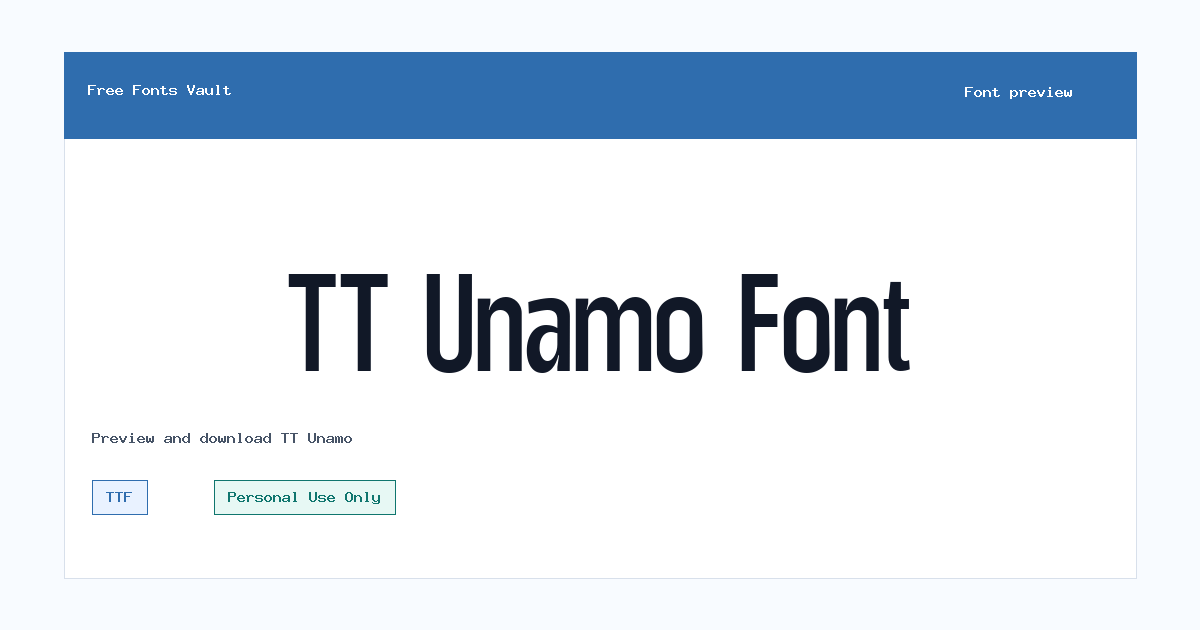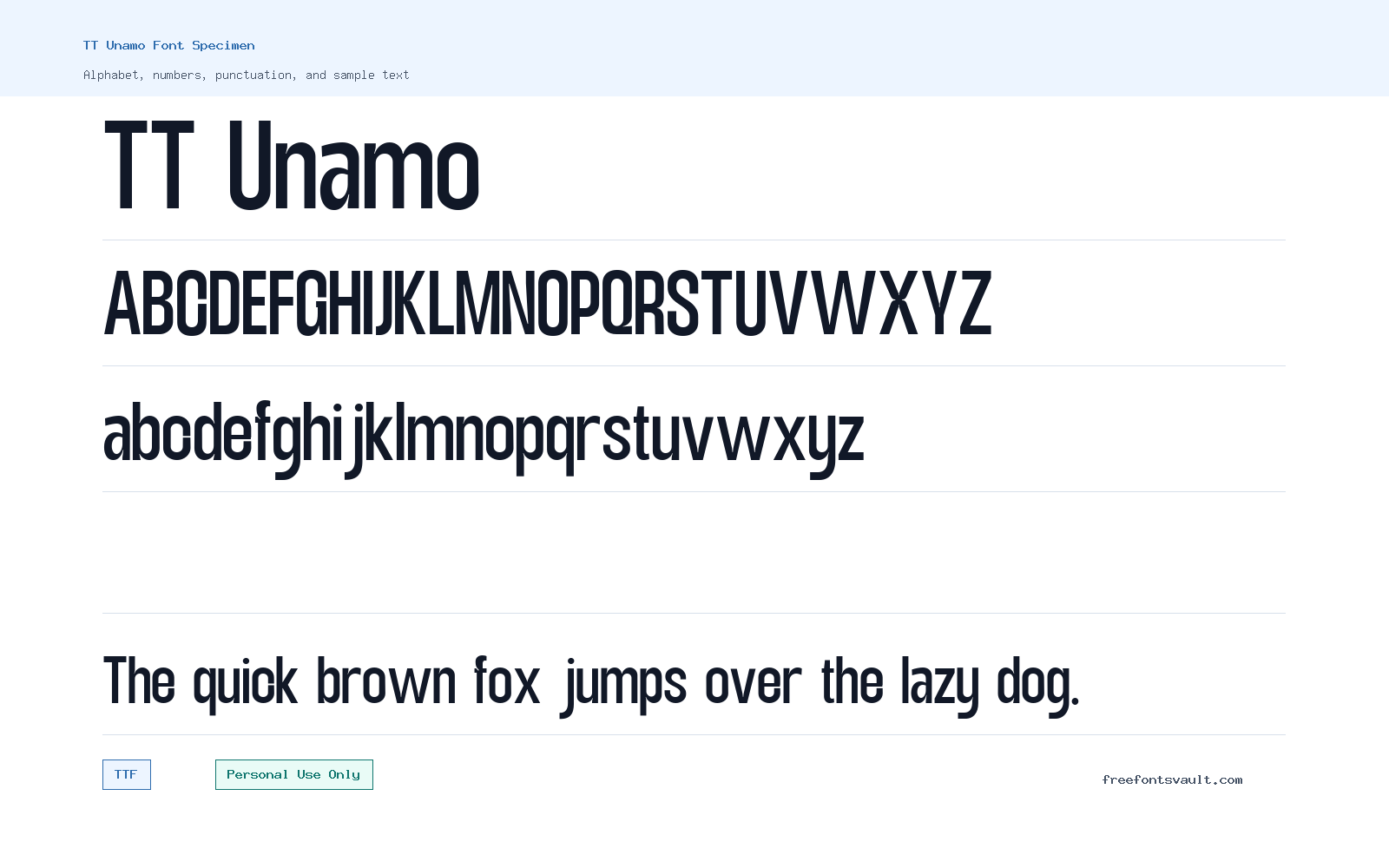
TT Unamo
• Designer Bobymocha
TT Unamo is a personal-use display font family with demo TTF files in a wide range of weights, from Thin through ExtraBold.
About TT Unamo
TT Unamo is listed as a display font family, so it is best approached as a typeface for short, visible text rather than long reading paragraphs. The download package includes several demo TrueType files, giving you room to test a lighter look for quiet headings or a heavier style for stronger titles. Because the available files are demo fonts, check each weight in the preview before using it in a finished design.
Use the font preview to test the exact words you plan to set, especially names, brand-style headings, numbers, and punctuation. Display fonts can look great in a title but may feel cramped or uneven in small body text, so try it at the size you need before downloading. For best results, pair TT Unamo with a simple sans serif or readable text face, and keep the more expressive work to headlines, posters, social graphics, logos for personal projects, and other short-form design uses.
• Headlines, display titles, poster text, and social media graphics where short wording is the focus.
• Personal design experiments, mockups, and typography previews that need multiple weights from the same family.
What is TT Unamo best used for?
Use it for short display text such as headings, posters, personal graphics, and mockups. Test it carefully before using it for small text or longer reading.